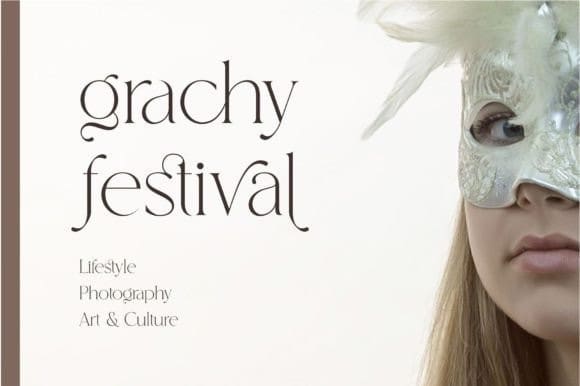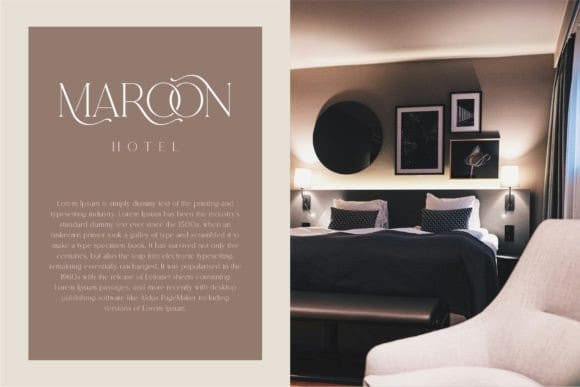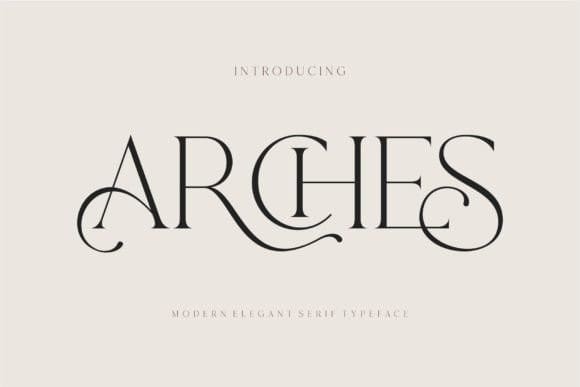
Arches Font
Arches Font – Modern Ligature Serif Font, inspired by the famous minimalist logo perfect for the purposes of designing templates, brochures, videos, advertising branding, logos, invitations, layout design, elegant crafting, beauty design and more.